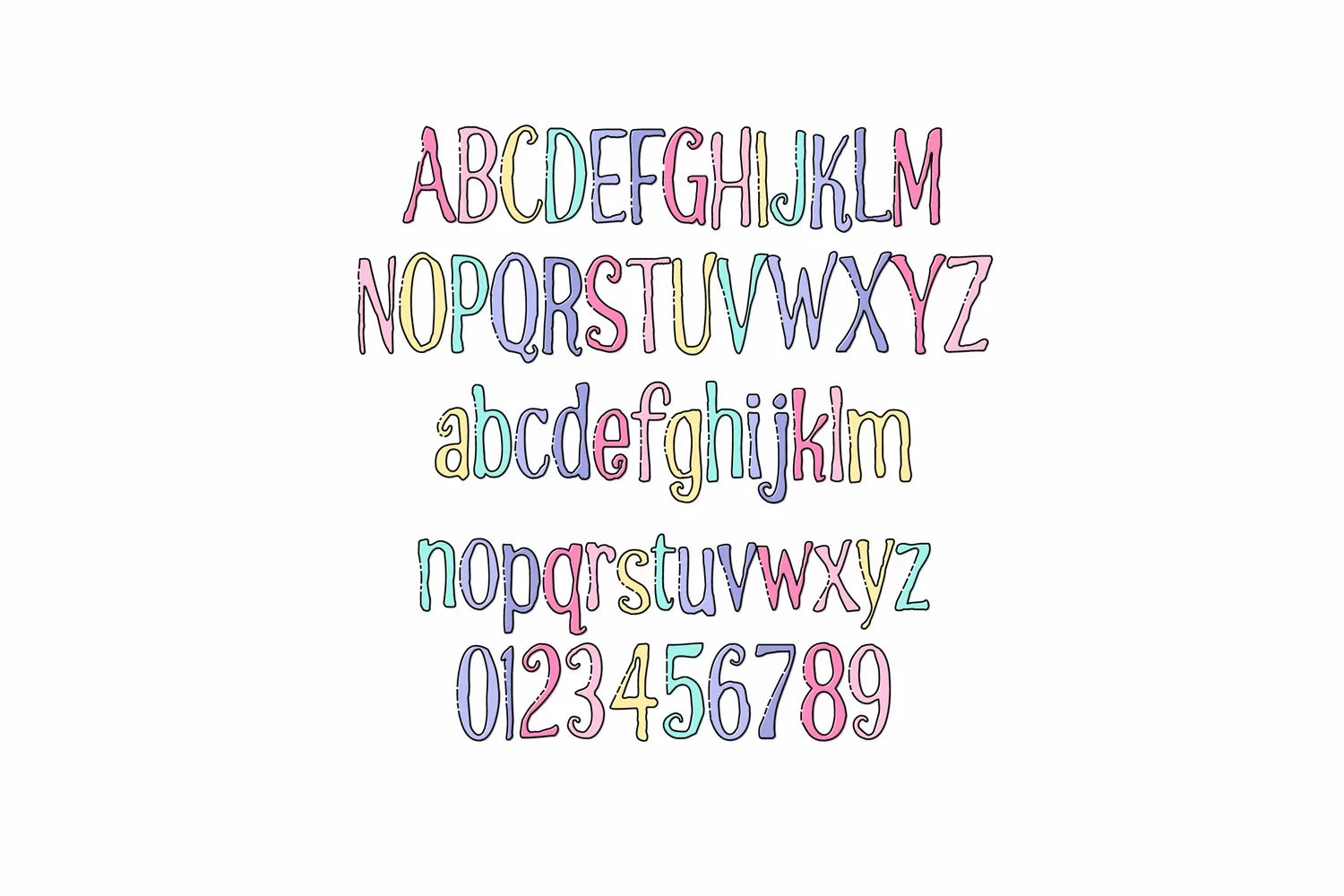
Pastel Smash
This full-color font features whimsical lettering outlines with a pastel fill. There is an alt case of additional variations of each letter that you can access through your system or Silhouette's glyph map.